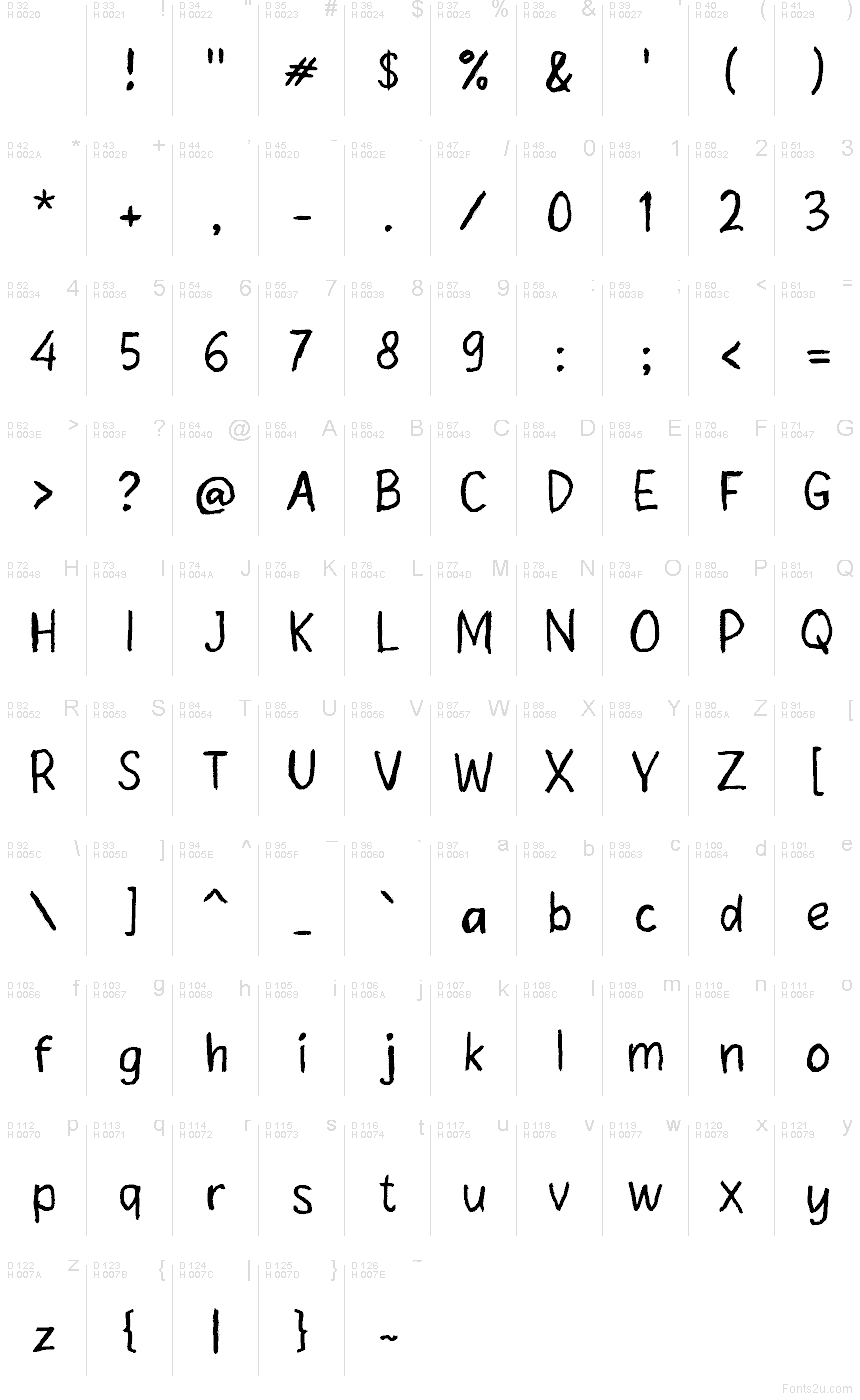
Nambal Ban
Nambal Ban font by wepfont.com is a free handwritten typeface with a scratchy, pencil-on-notebook feel that’s equal parts casual and expressive. Its tall, slightly wobbly letters and grainy strokes look like they were scribbled in a hurry, giving layouts an honest, unpolished charm that feels very human. The rhythm is loose but readable, so it still holds up when you use longer words or short sentences.
Using Nambal Ban, this free font shines on journal-style graphics, zines, sketchbook covers, quote posts, comic notes, classroom materials, and DIY event flyers. It brings a raw, creative energy that works beautifully for anything that should feel personal or handmade rather than slick and corporate. Pair it with a clean sans serif for body text, and let Nambal Ban handle headings at slightly larger sizes so its textured character really comes through.